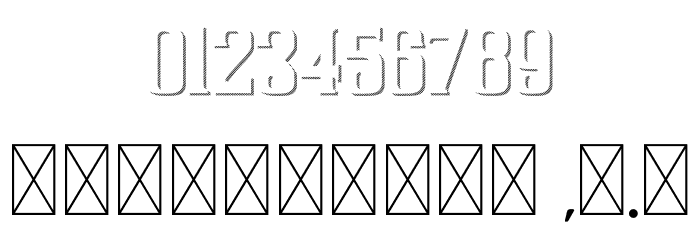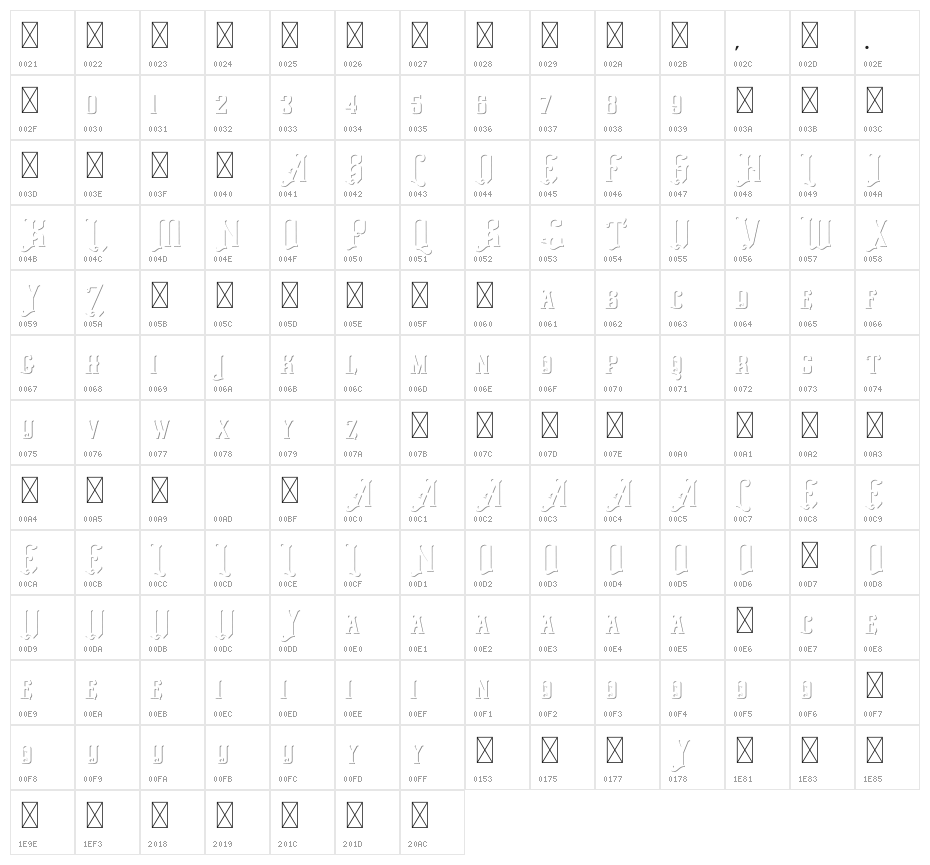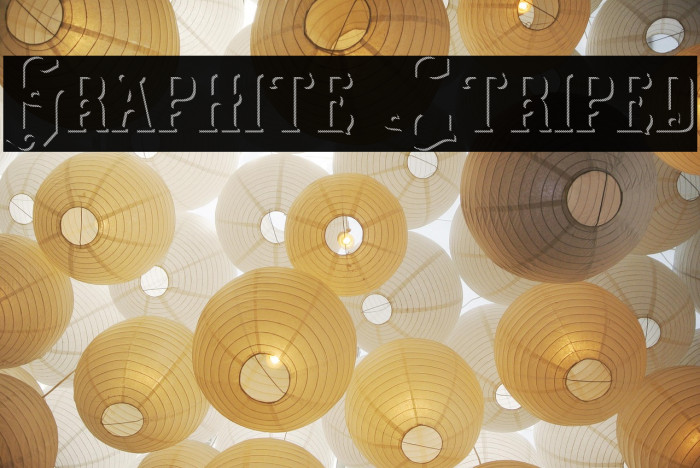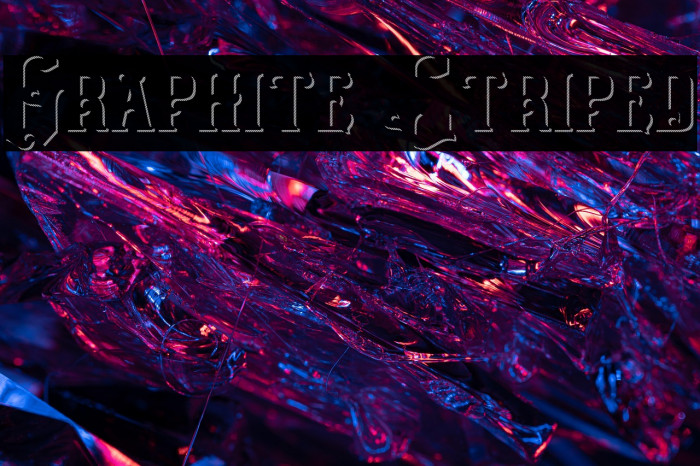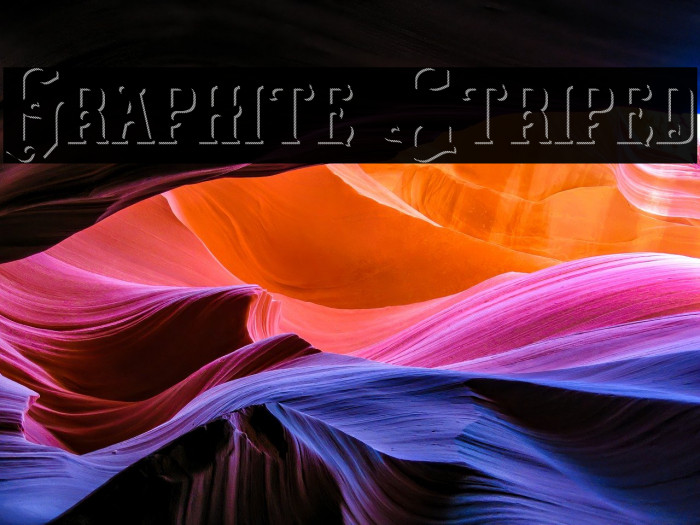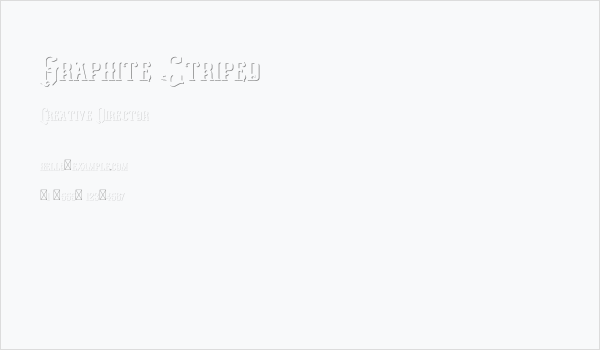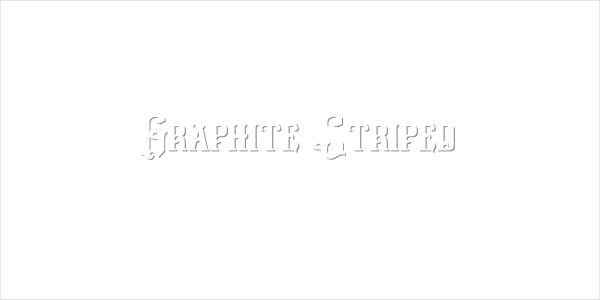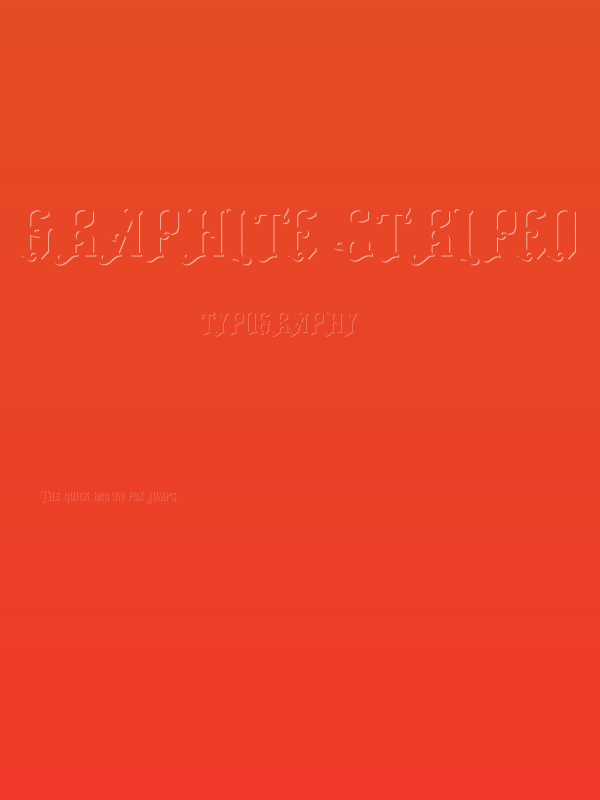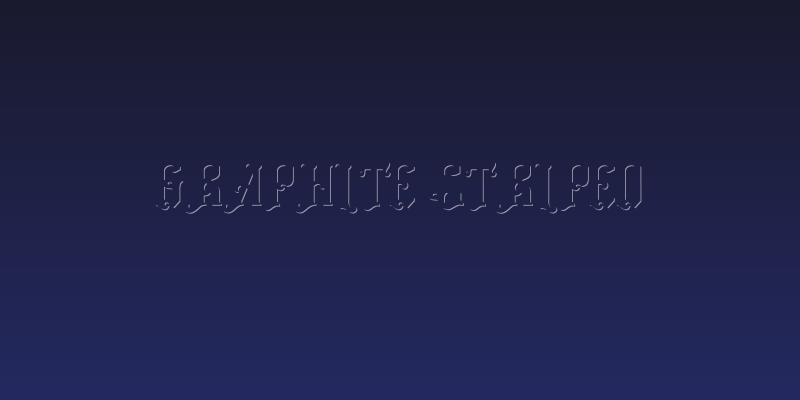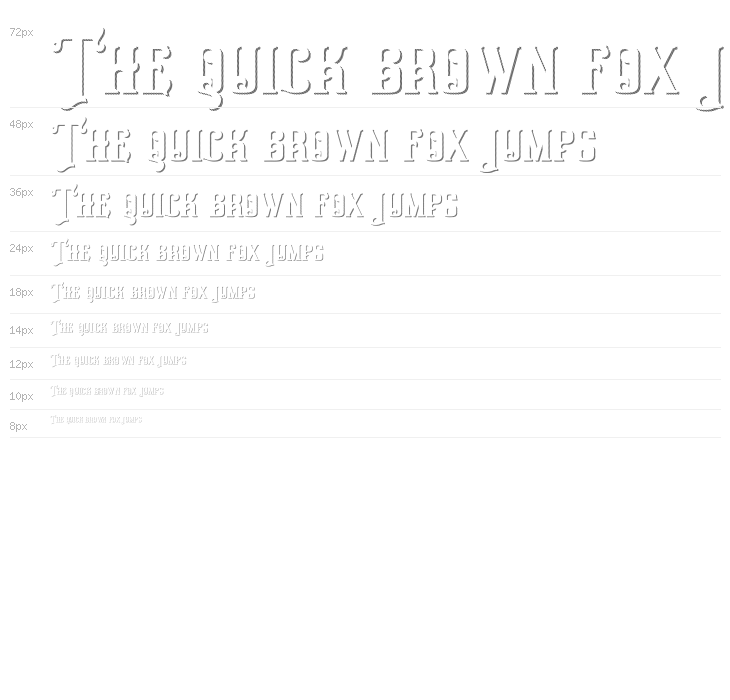
Graphite Striped Font
Graphite Striped Description
This font features a unique striped pattern that runs through each character, giving it a distinct and decorative appearance. The uppercase letters are bold and have a strong presence, with intricate detailing that adds a touch of elegance. The lowercase letters maintain the same striped design, ensuring consistency throughout the typeface. Numbers are equally bold and follow the same stylistic pattern, making them stand out. The special characters are designed with the same attention to detail, ensuring they integrate seamlessly with the rest of the font. This typeface is perfect for projects that require a bold statement and a touch of sophistication.
| Proposed Projects | Ideal for branding, poster design, and any project that requires a bold, decorative touch. |